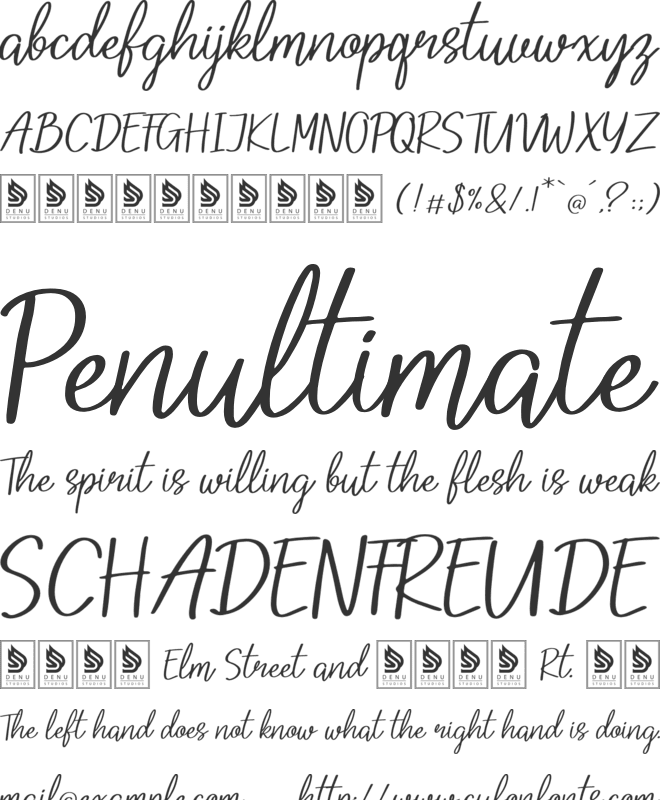
Identic Partner Script Font Family
Identic Partner | Handwritten Font Duo is suitable for a variety of projects such as: logos, branding projects, homeware designs, product packaging, mugs, quotes, posters, shopping bags, t-shirts, book covers, name cards, invitation cards, greeting cards, labels, photography, watermarks, special events, and any other lovely projects that need a touch of Handwritten Font Duo.